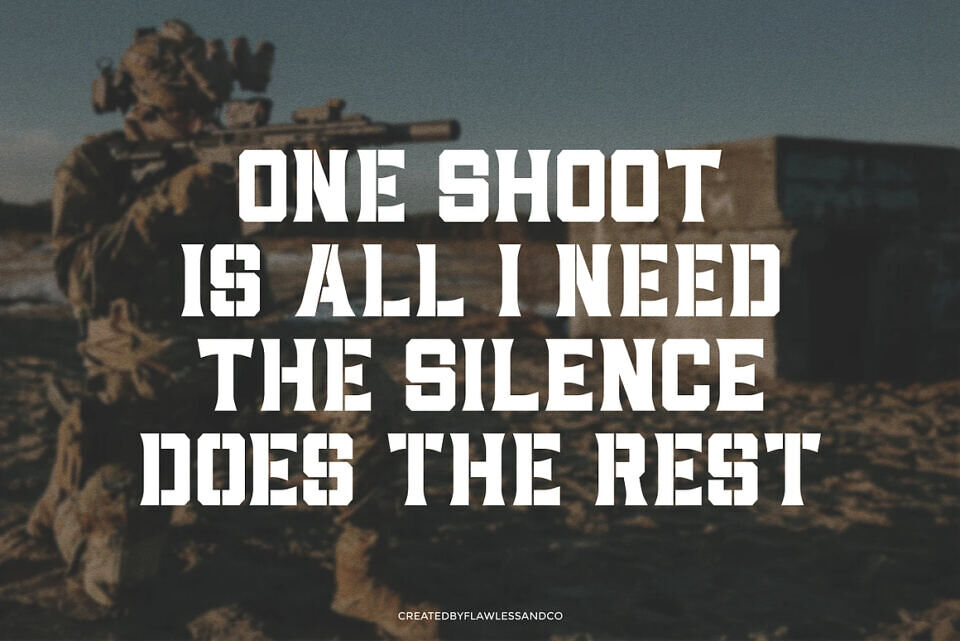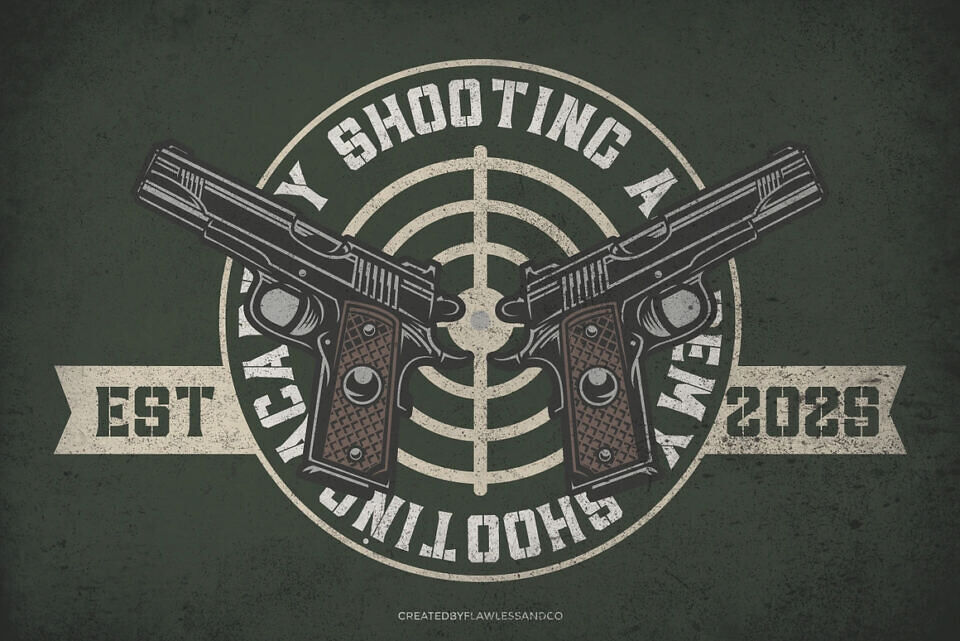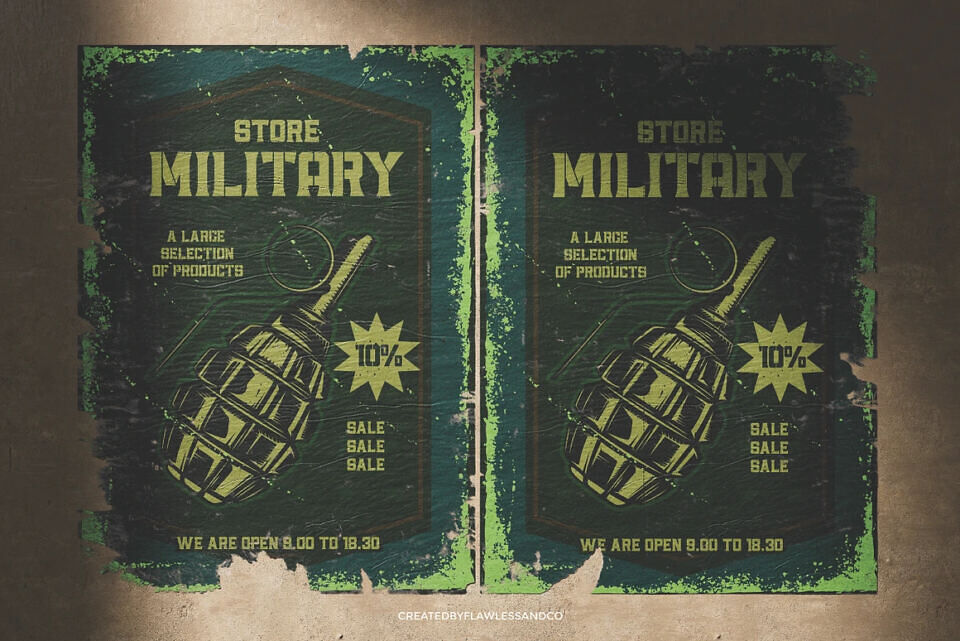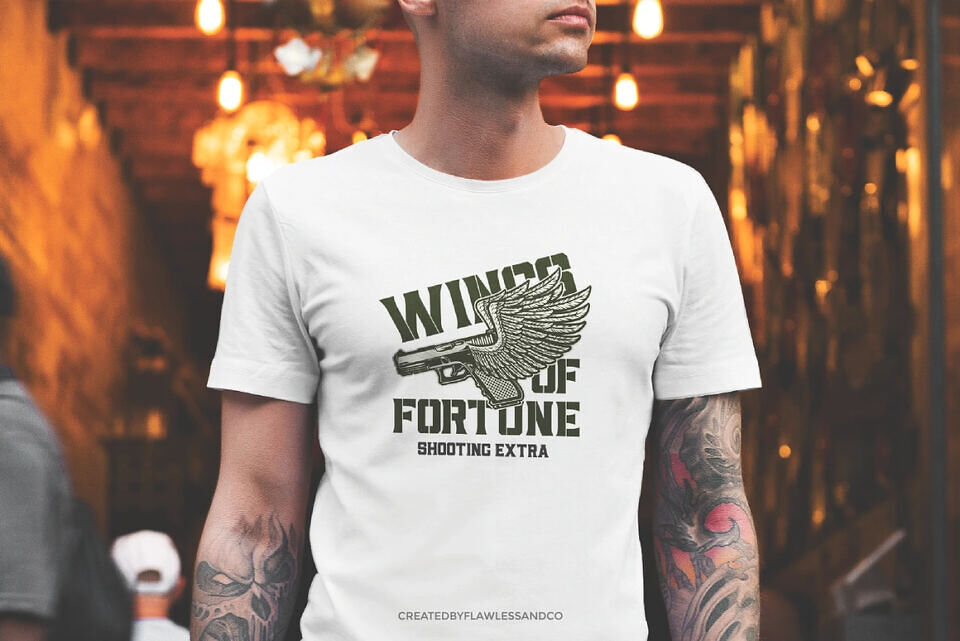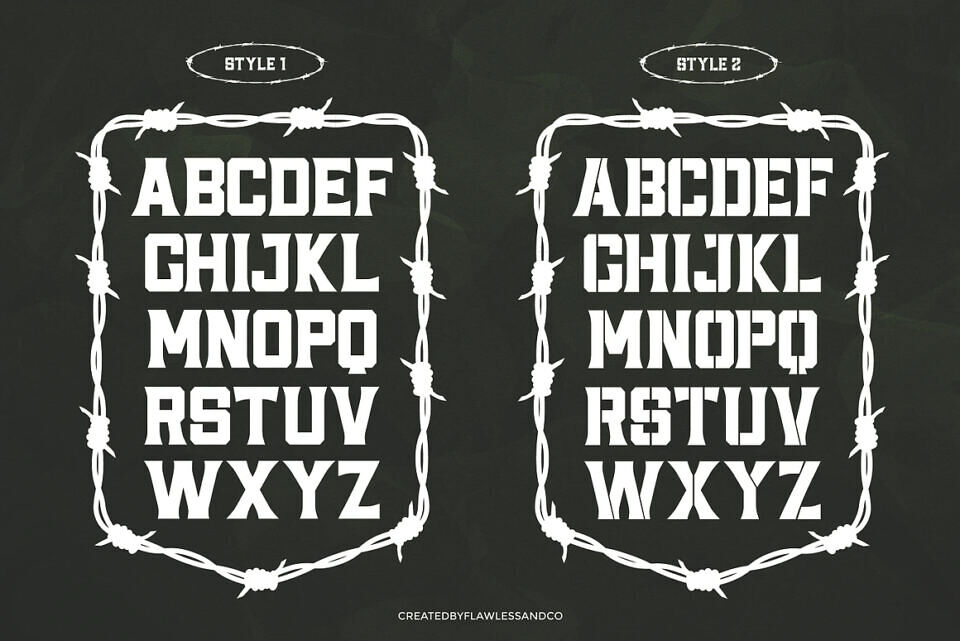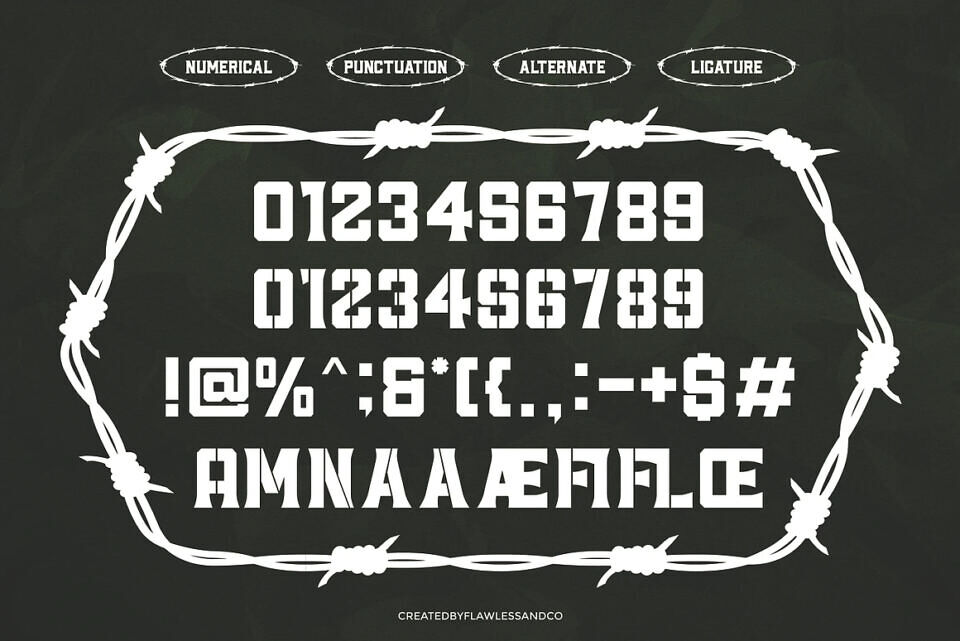
Gunsman Font
Gunsman is a bold military and stencil-style font, designed for strength, precision, and authority. With its sharp cuts and rugged edges, it embodies the toughness of tactical and industrial aesthetics.
Equipped with multiple character alternatives, this font is perfect for action-themed projects, combat-inspired branding, army posters, tactical gear packaging, survival guides, or any design that demands a strong military presence. Whether you’re working on war-themed visuals, extreme sports branding, or gritty urban designs, Gunsman delivers power and impact in every letter.
Gunsman is an essential choice for creatives who value strong, impactful typography. With its bold style and distinctive details, this font elevates brand and logo designs, helping you create visuals that are memorable, versatile, and impossible to ignore.